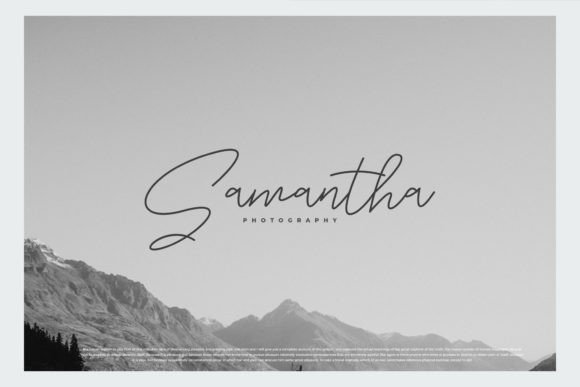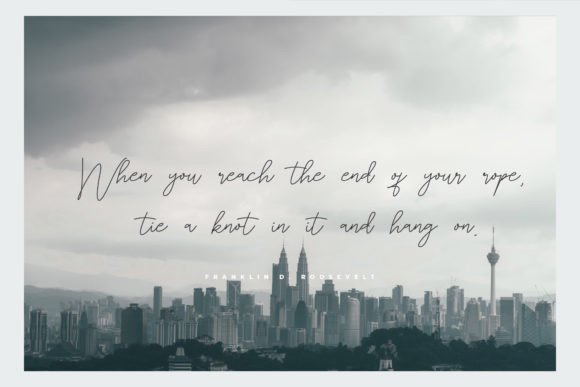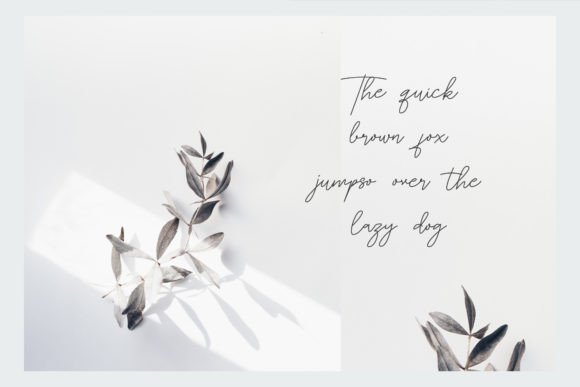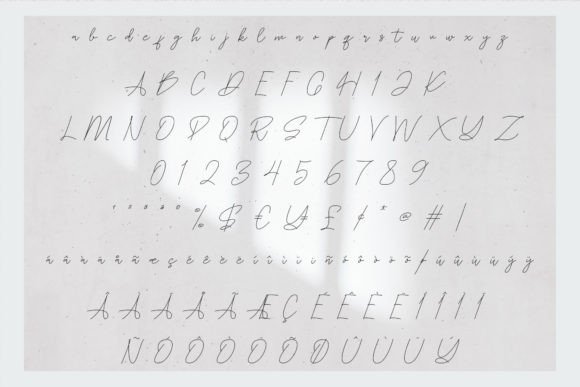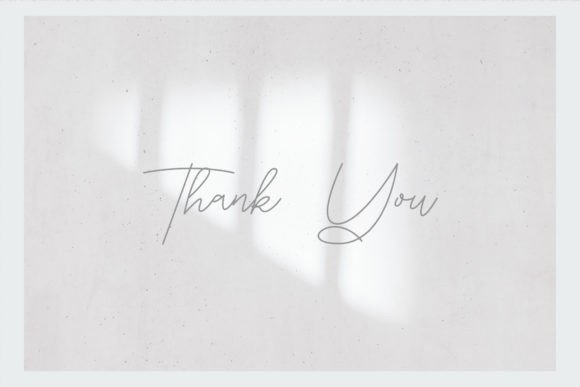
Introduction to Patoryi Font
Patoryi is a delicate and elegant handwritten font.
Its distinct and well-balanced letters make this font a masterpiece Fall in love with its incredibly versatile style and use it to create spectacular designs.